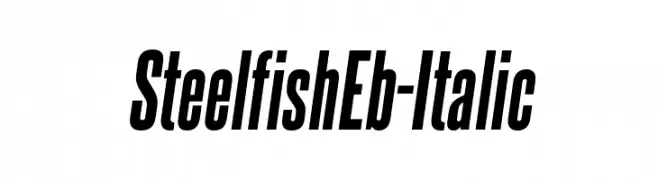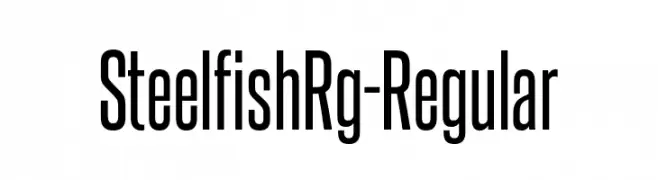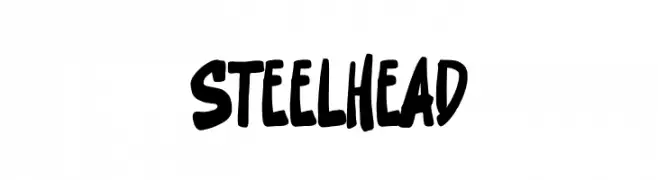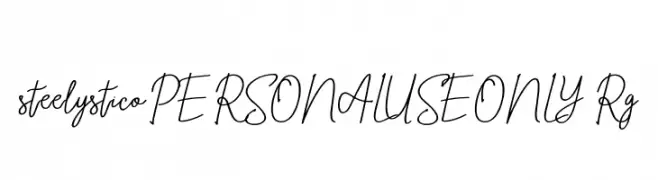
A dynamic and elegant cursive script font with a modern yet classic appeal.
A bold, handwritten font with a playful and energetic style.
A bold, italicized, and condensed font with a modern and sleek appearance.
Bold, condensed, and italic with a modern, dynamic style.
A bold, condensed font with tight spacing and strong visual impact.
A bold, outlined font with a modern and striking appearance.
A bold, condensed sans-serif font with a modern and sleek design.
A tall, condensed, and modern font with a sleek and structured appearance.
A tall, narrow, and italicized font with a modern and dynamic style.
A bold, italic font with horizontal stripes and a modern, dynamic style.